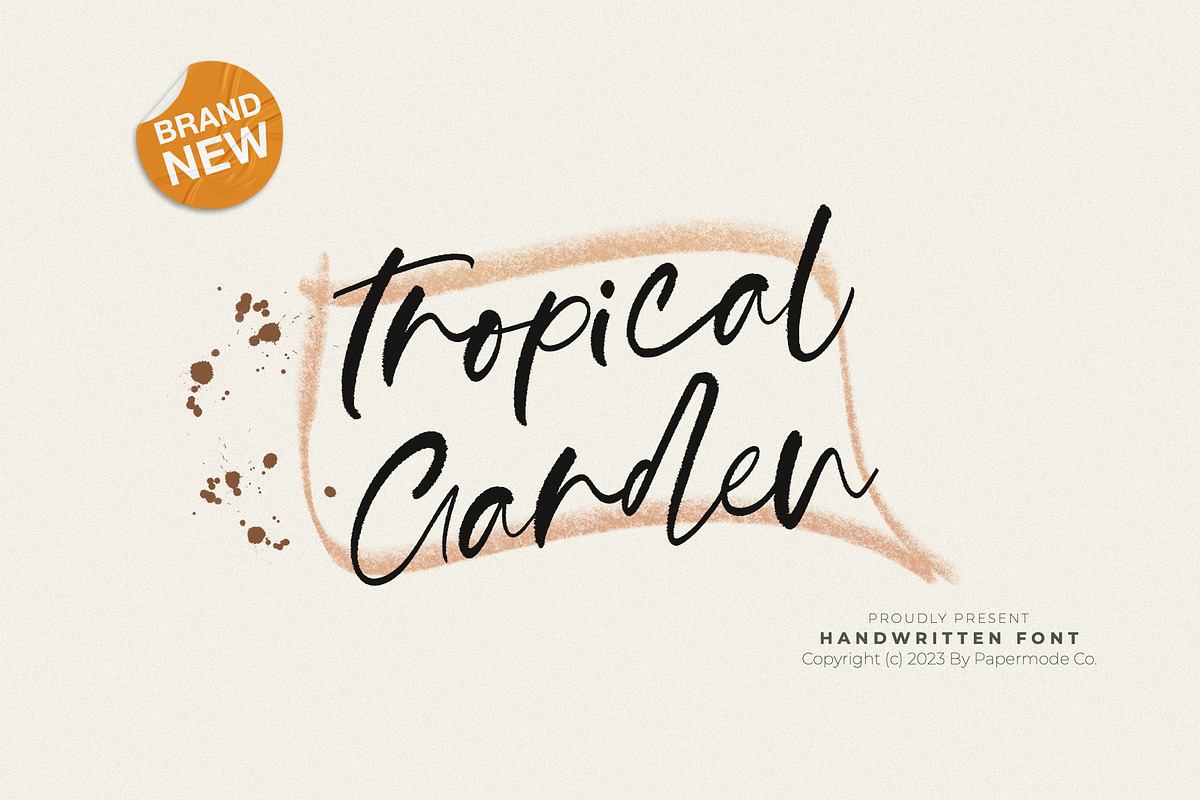
Tropical Garden Font Free Download is a vibrant and playful typeface that brings the feel of a tropical paradise to your designs. Perfect for summer branding, event posters, product packaging, and creative social media graphics, this font captures the essence of relaxation and fun.
With its lively curves and fresh, organic shapes, Tropical Garden Font Free Download adds personality and energy to any project. Whether you're designing for a resort, a tropical drink brand, or a beach-themed event, this font brings the warmth and vibrancy of a tropical garden to your typography. Try it out in your next creative project and let it elevate your designs—then upgrade to a commercial license when you're ready to share it with the world.